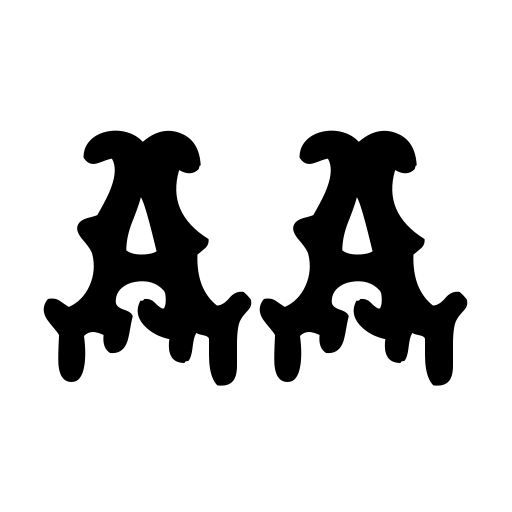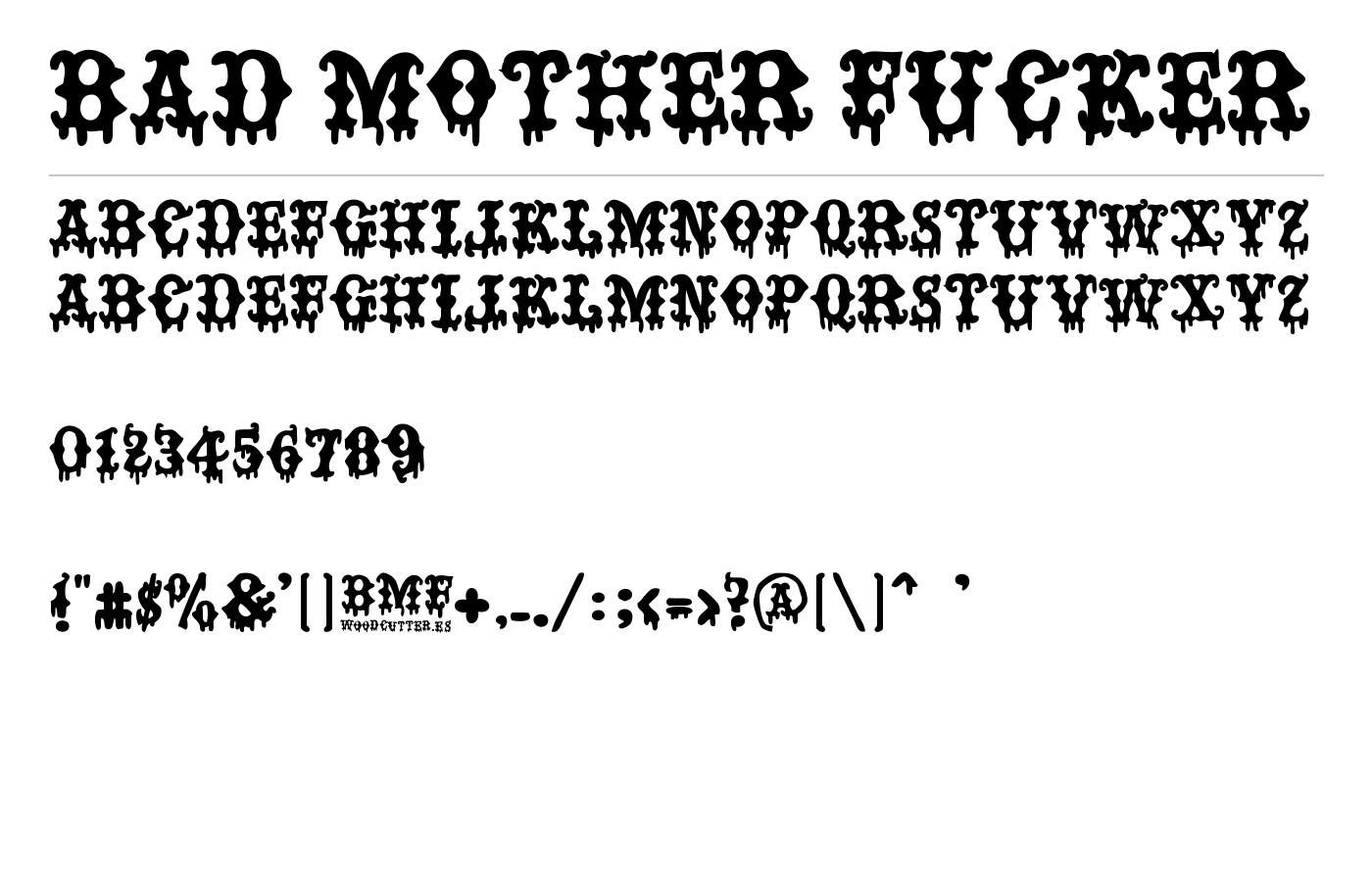
BAD MOTHER FUCKER is a bold, decorative serif font with a dripping, melting effect that gives it a strong, edgy personality. Its heavy weight and unique, organic shapes make it ideal for impactful headlines, posters, or branding that seeks a rebellious, unconventional vibe. This font works best in creative or alternative contexts where grabbing attention and conveying a sense of boldness is essential.
BAD MOTHER FUCKER Font